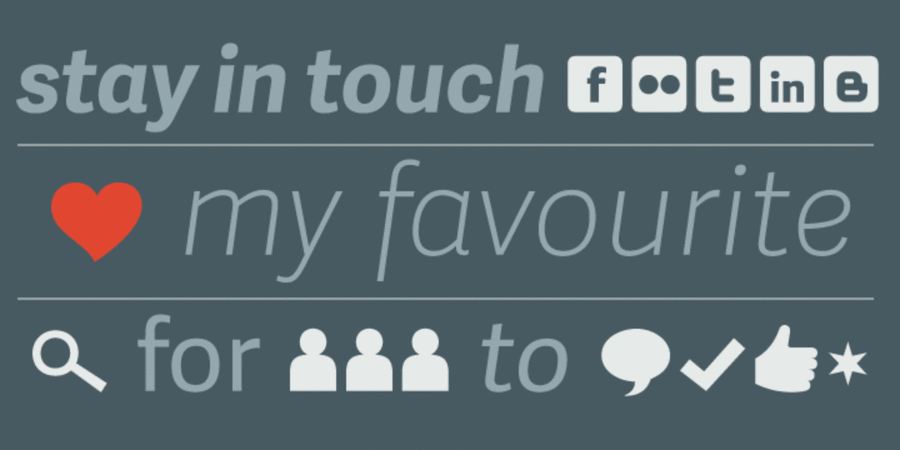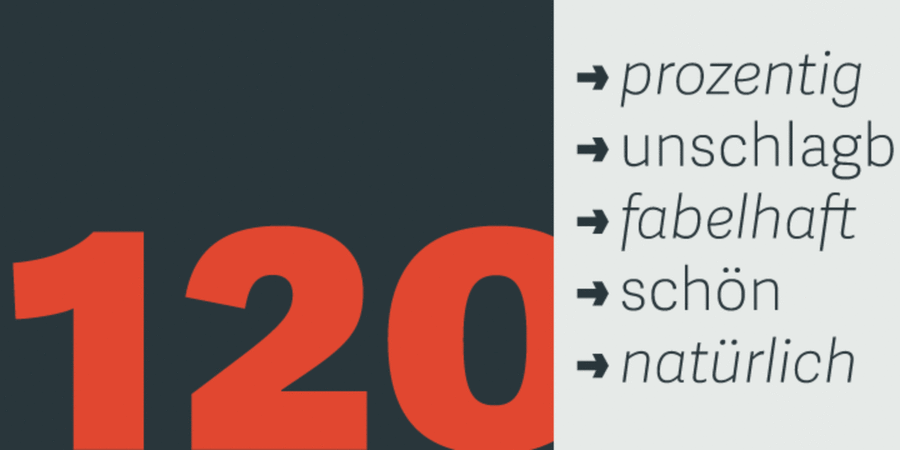
About Adelle Sans CYRThis sans serif counterpart to the Adelle type family proposes a cleaner and more spirited take on the traditional grotesque sans. Awards: Typographica’s Best Typefaces of 2012, Yearbook of Type I (2013), Premio Clap 2013, ISTD 2014, Rutenia 2014. As typical with TypeTogether fonts, the most demanding editorial design pieces were taken into consideration when engineering Adelle Sans. The combination of its lively character and unobstrusive appearance that is inherent to grotesque sans serifs make it an utterly versatile tool for any imaginable graphic application, whether it is branding, signage or advertising. Without any doubt, the key word behind Adelle Sans' design is “flexibility”.
Adelle Sans is available in seven weights with their matching italics. Each one of these 16 styles is a perfect match in terms of weight and vertical proportions to its slab serif equivalent. This ensures a graceful fit between both font families in the same block of text, and a subtle, but noticeable change of texture when used as similar point sizes.
The 900-character set in includes typographic niceties, small caps, several sets of figures, and support for over 90 languages on Latin and Cyrillic. It also includes a set of 35 icons specially designed for electronic publications.
Adelle Sans was designed by Veronika Burian, Vera Evstafieva and Jose Scaglione in TypeTogether foundry in 2012-2015.